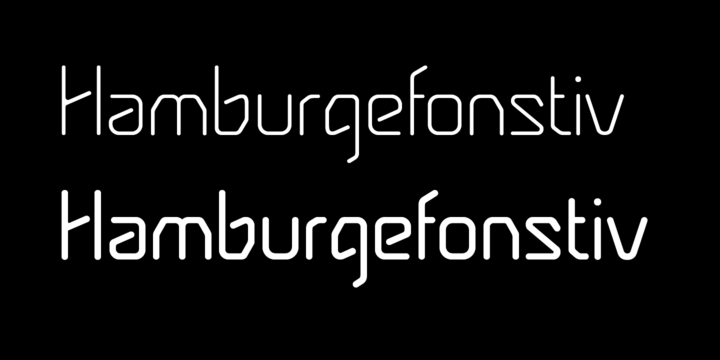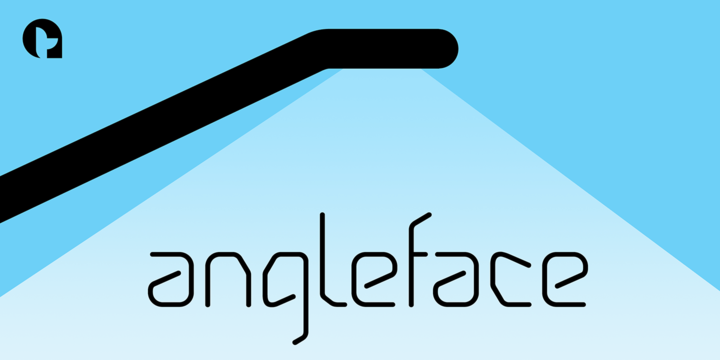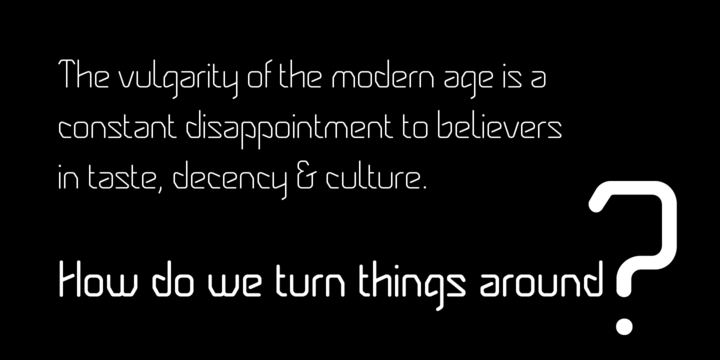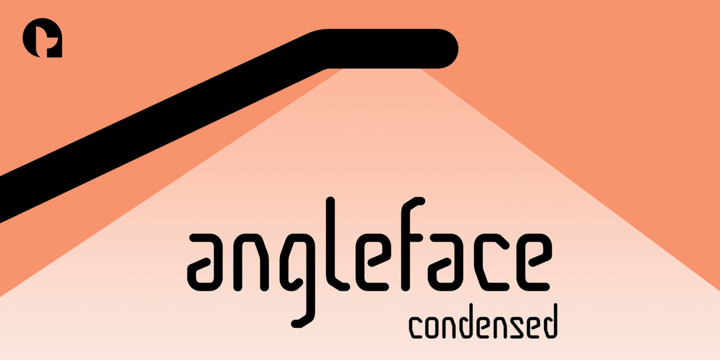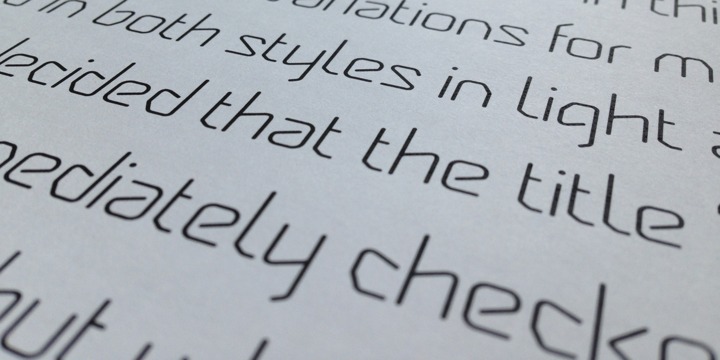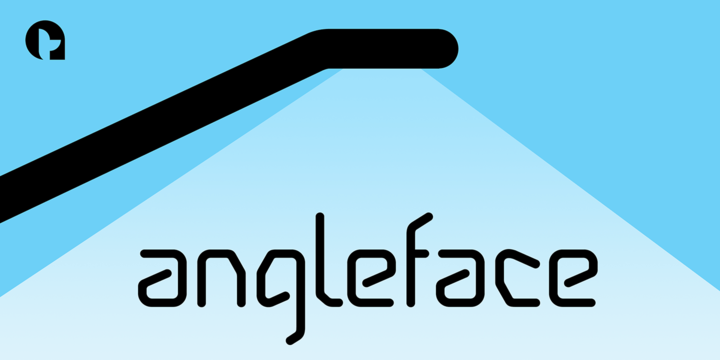
Angleface Font Family
About this font family
With initial thoughts of creating something tubular, I had in the back of my mind the kind of contemporary chrome furniture that became ubiquitous throughout the 60s and that concept remained with me throughout the development process.
The font-styling idea worked out very well in this case, resulting in plenty of optional character variations for my chosen theme, most of which are included in both styles of light and bold character sets.